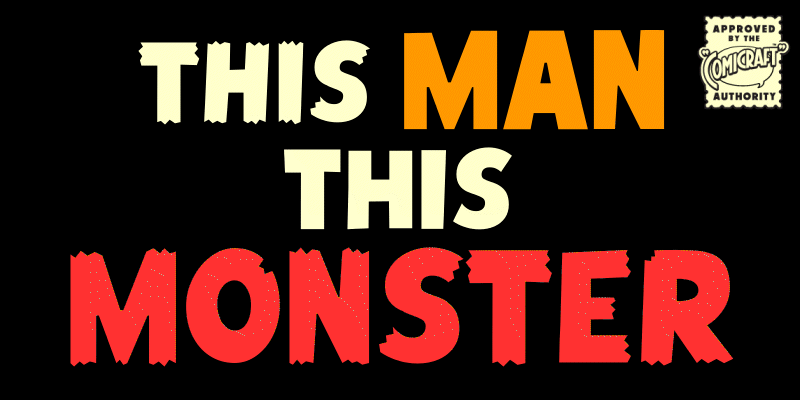
CC This Man This Monster Variable Font Free Download is a bold and unique typeface designed for projects that demand attention. With its strong, angular letterforms and dramatic contrasts, this font is perfect for headlines, branding, posters, and any design that aims to make a powerful statement. Inspired by the world of comics and graphic novels, it brings a dynamic and aggressive flair to your typography.
The CC This Man This Monster Variable Font allows you to adjust the weight and style of the font, making it versatile for a variety of design needs. Whether you need a bold, heavy weight for maximum impact or a lighter version for subtle designs, this variable font adapts to your requirements.